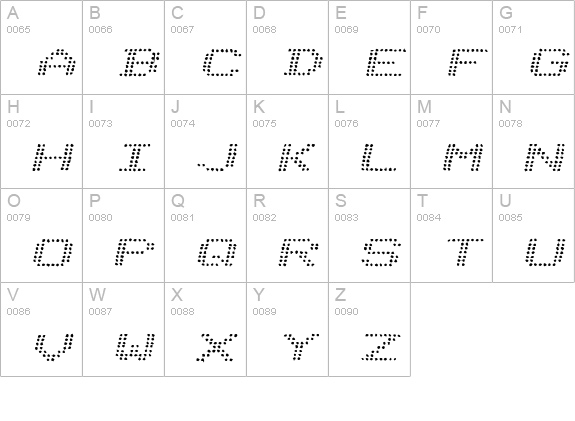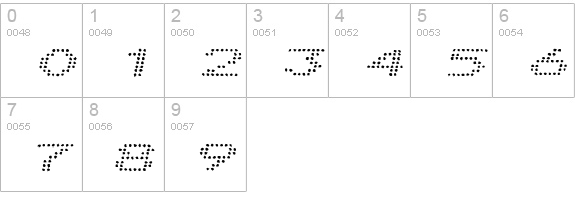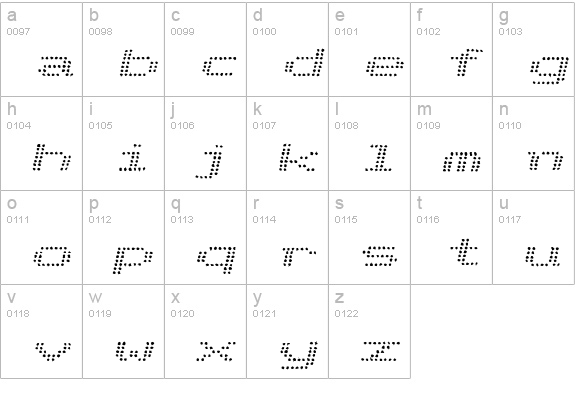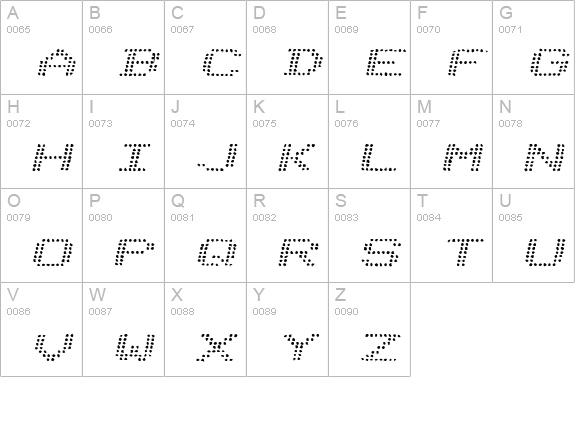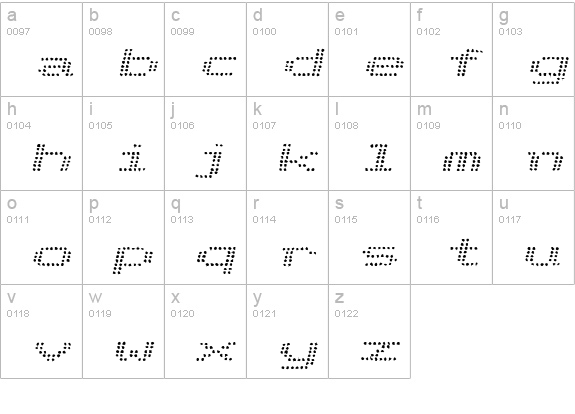
Telidon Ink Ex Italic is a distinctive, italic variant in the Telidon typeface family \xE2\x80\x94 well suited to design and typography projects.
Telidon Ink Ex Italic is a visually striking font that exudes elegance and sophistication. Its italicized design adds a touch of modern flair to any project, making it perfect for creative endeavors such as branding, advertising, and editorial design. The unique ink-inspired strokes give this font a distinct character that sets it apart from traditional typefaces. What makes Telidon Ink Ex Italic even more appealing is that it is available for free download at FontsMarket.com. This means that you can easily access this high-quality font without any cost, making it a valuable addition to your font library. Whether you're a designer looking to add a fresh perspective to your work or a hobbyist seeking to enhance your projects, Telidon Ink Ex Italic is a fantastic choice that combines style and accessibility seamlessly. Don't miss out on the opportunity to elevate your designs with this versatile and eye-catching font.